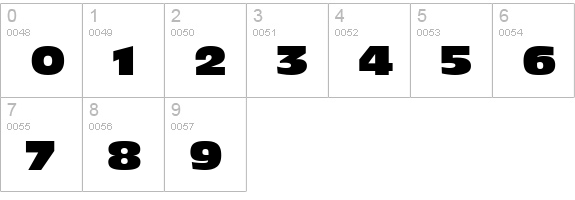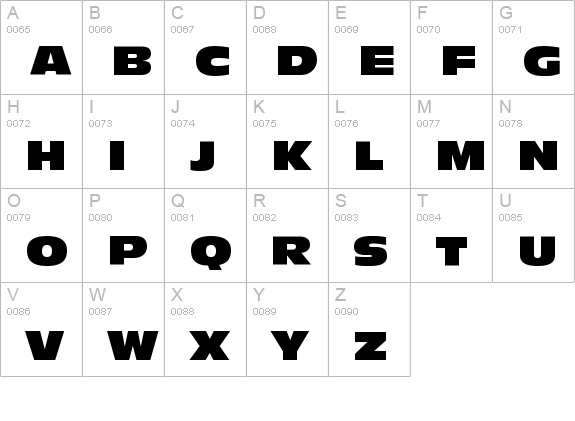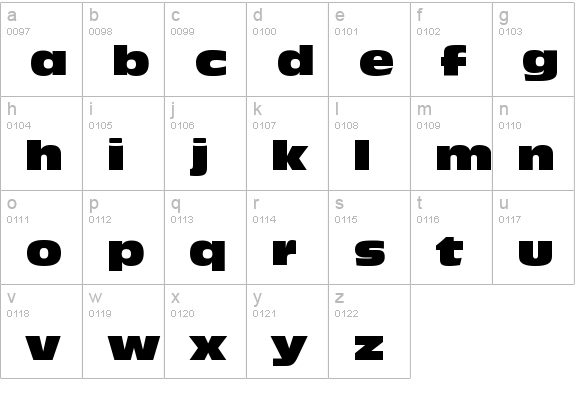
Decade Black SSi Extra Black is a maximum-weight, dramatic variant in the Decade typeface family \xE2\x80\x94 well suited to maximum-impact headlines, posters, and packaging.
Decade Black SSi Extra Black font exudes a bold and powerful presence with its strong, thick strokes and sleek design. This font is perfect for making a statement and commanding attention in any design project. Whether you're creating posters, logos, or headlines, Decade Black SSi Extra Black font will ensure that your message stands out with its modern and edgy appearance. The best part? Decade Black SSi Extra Black font is available for free download at FontsMarket.com. This means you can easily access this striking font and incorporate it into your creative projects without any cost. Don't miss out on the opportunity to enhance your designs with the impactful style of Decade Black SSi Extra Black font - download it now and make a bold statement!